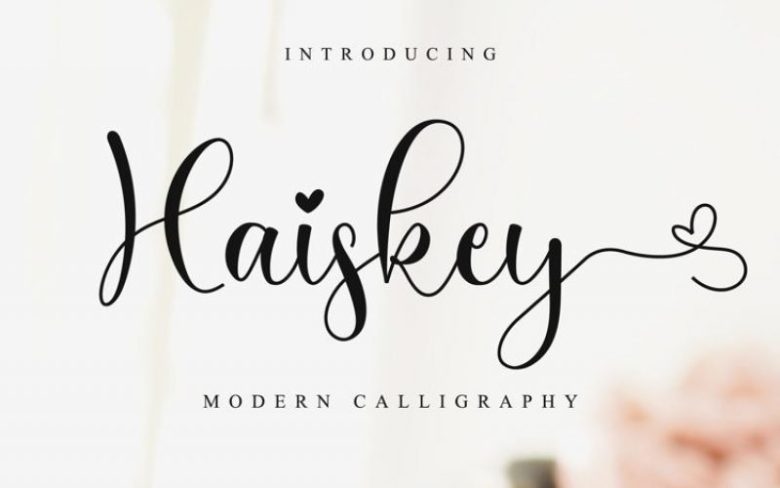
Haiskey Calligraphy Font
Haiskey is a beautiful script font featuring cute hearts in its swashes. Its classy and elegant look makes it perfect for logos, branding, invitations, stationary, wedding designs and social media posts.